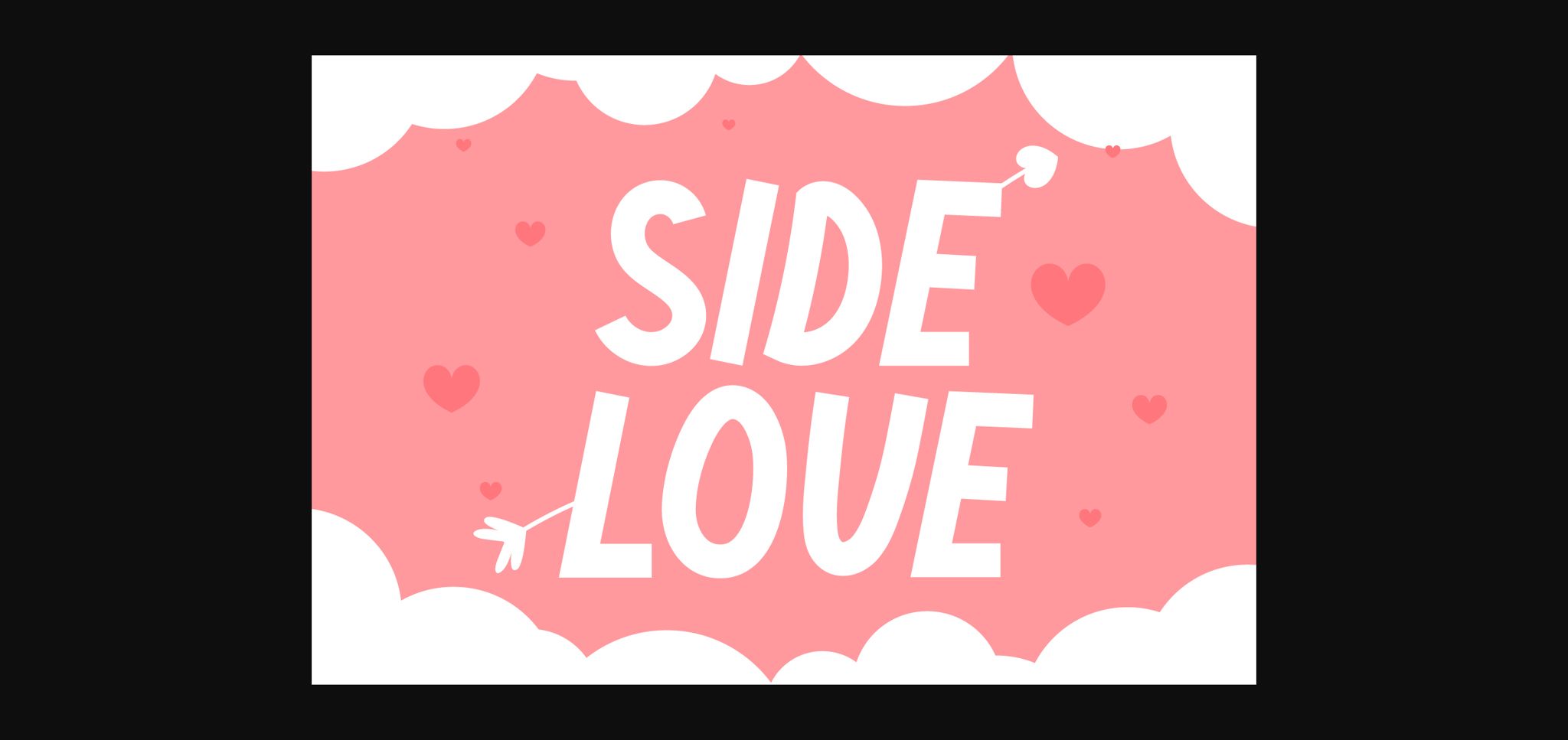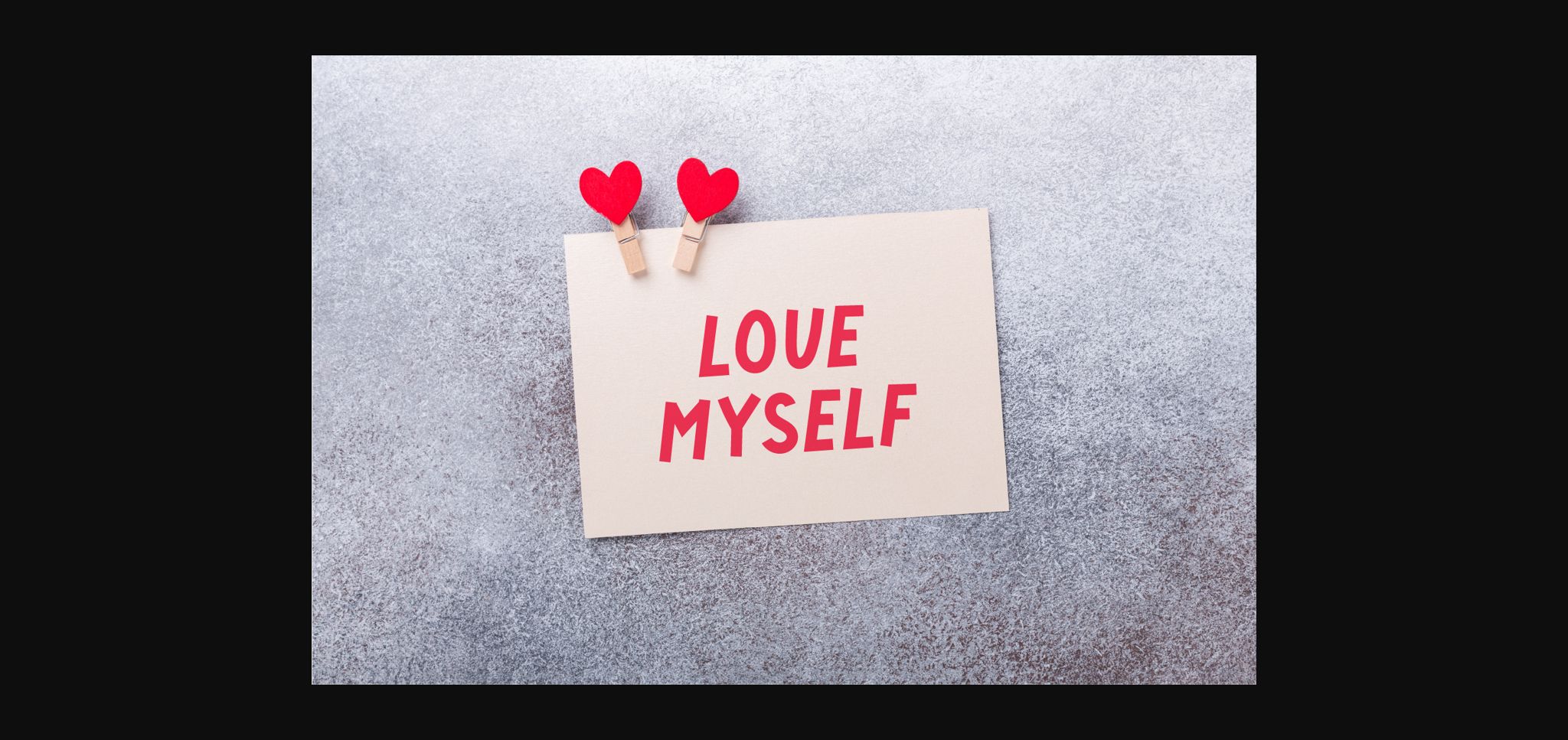
About Side Love Font
Side Love is a thick Sans Serif Font that is both bold and cute! This font will love wonderful on posters, social media posts, wall art, flyers, and all the design that you want to make stand out!